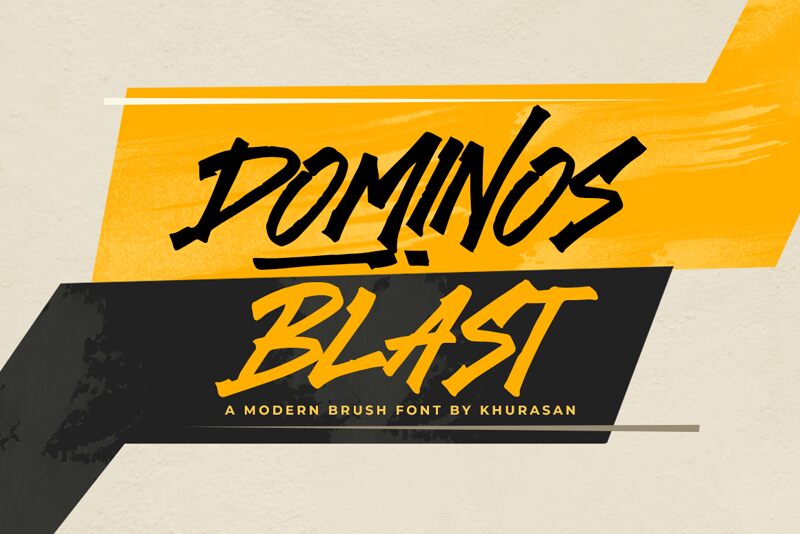
Dominos Blast
Dominos Blast, a modern brush font designed by Khurasan, adds an energetic and dynamic touch to any project. Its semi-light weight and semi-condensed width make it a versatile choice for various design needs, including branding, advertising, packaging, and social media graphics. The font's stylish brush strokes create a sense of movement and freedom while maintaining legibility. Dominos Blast is suitable for projects that require a contemporary look with a hint of playfulness that can complement different color schemes. With Dominos Blast, your designs will definitely stand out from the crowd.